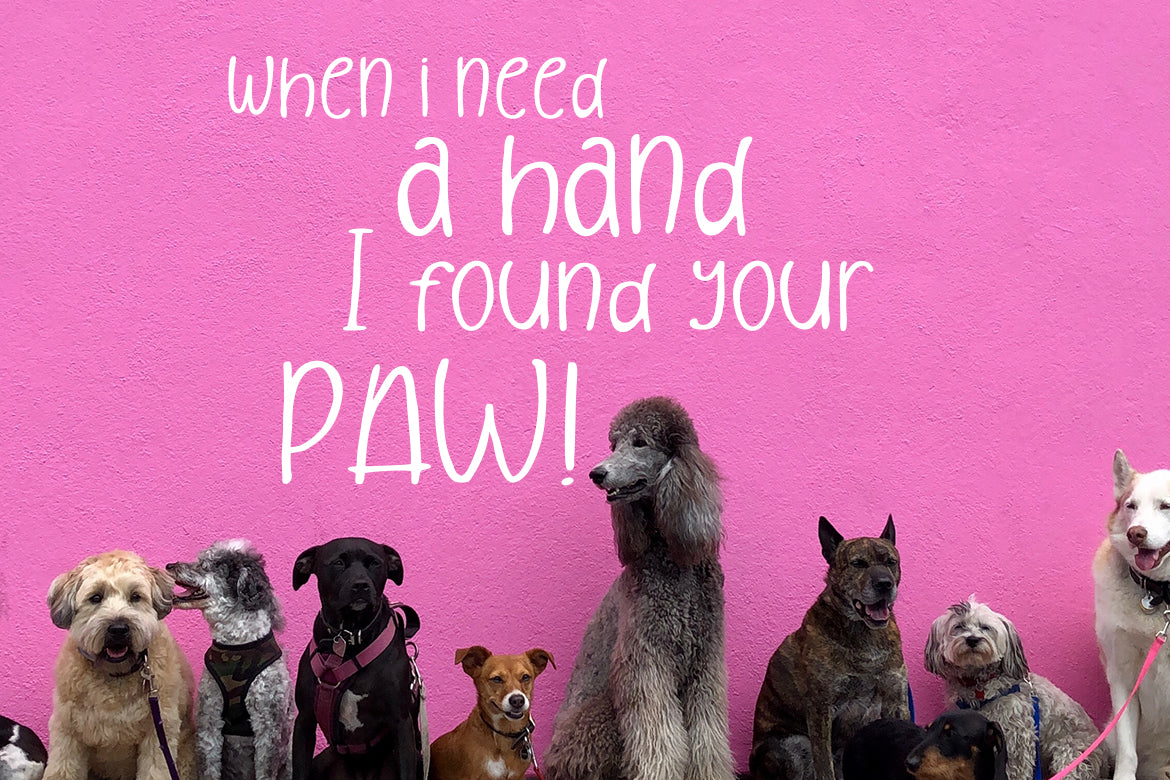
After Sunset - Free Handwritten Condensed Font
Take a look at this stunning After Sunset - Free Handwritten Condensed Font. Download this free font from the original source of Crella. Showcase your designs like a graphic design pro by adding a new touch with this fancy font.